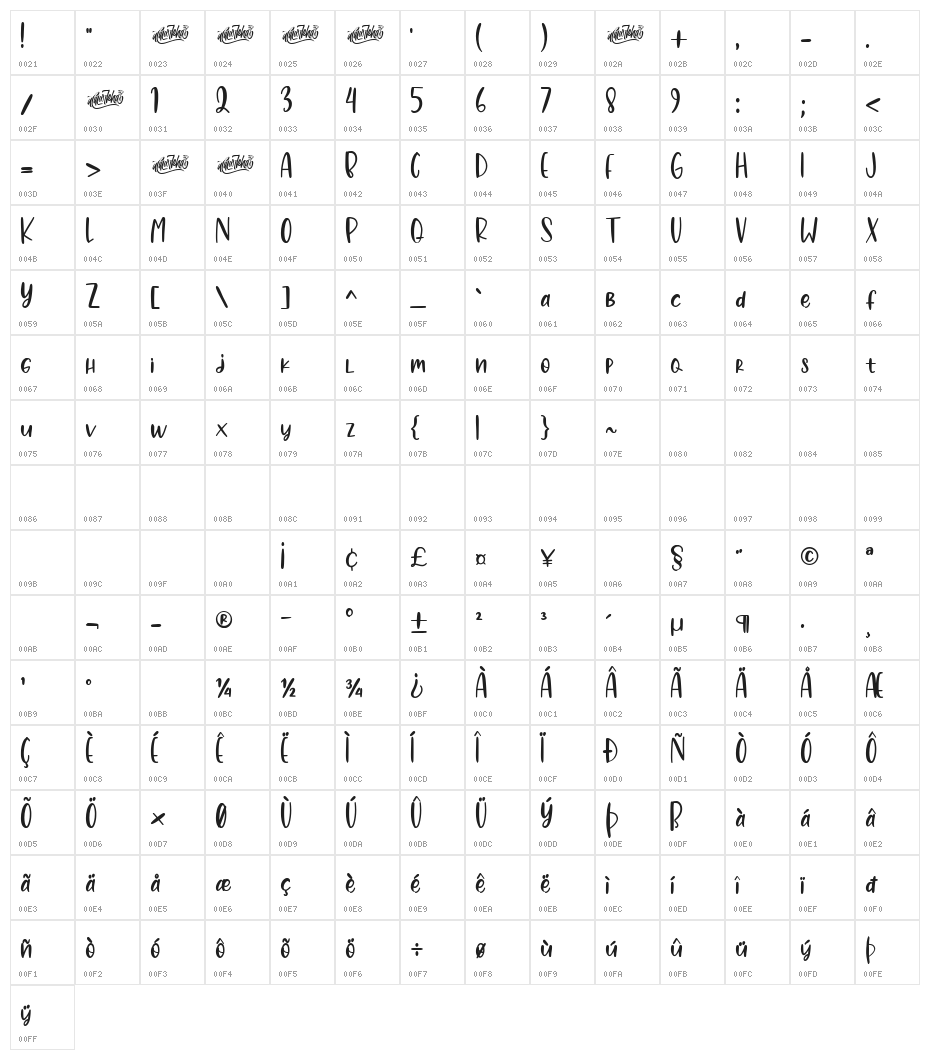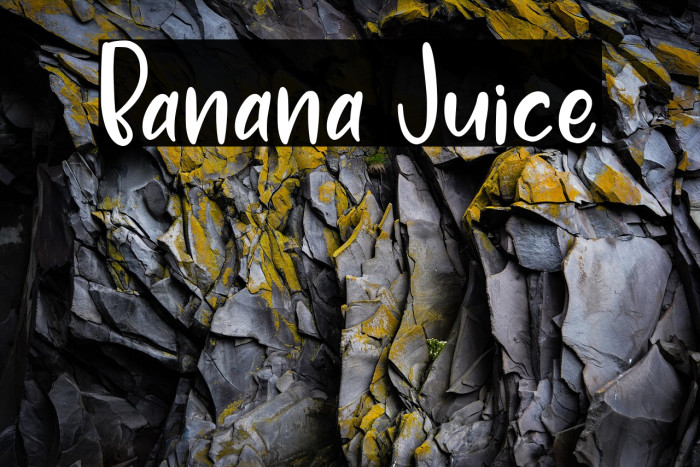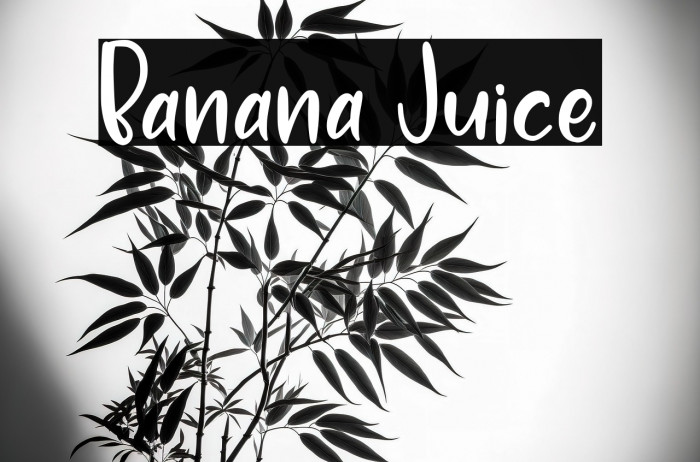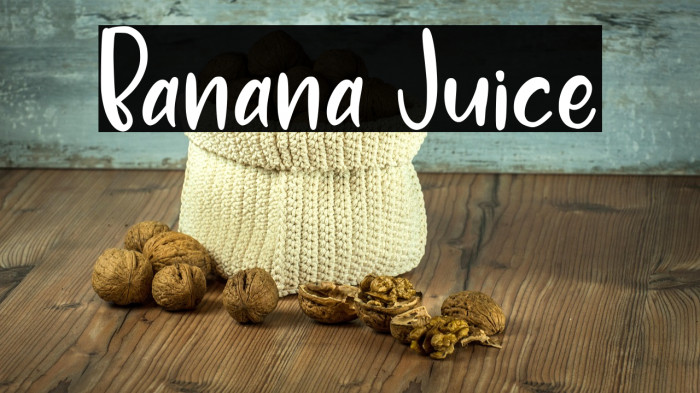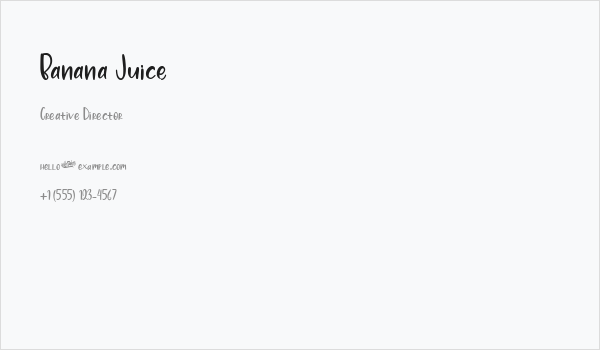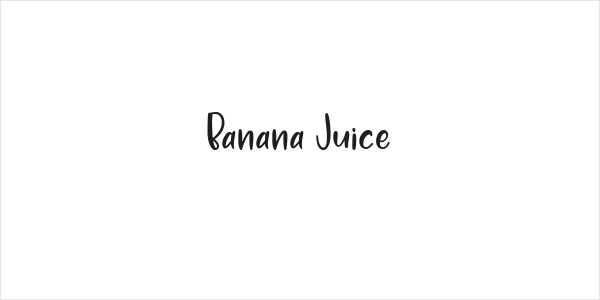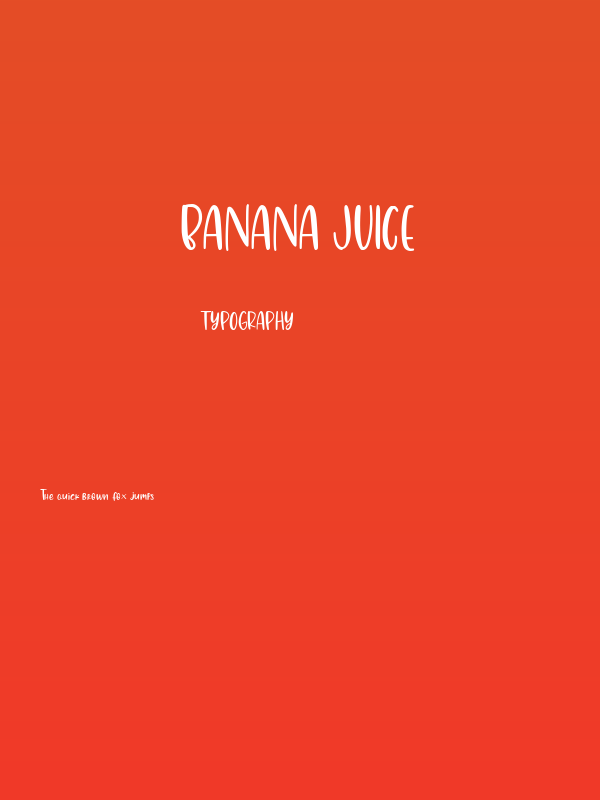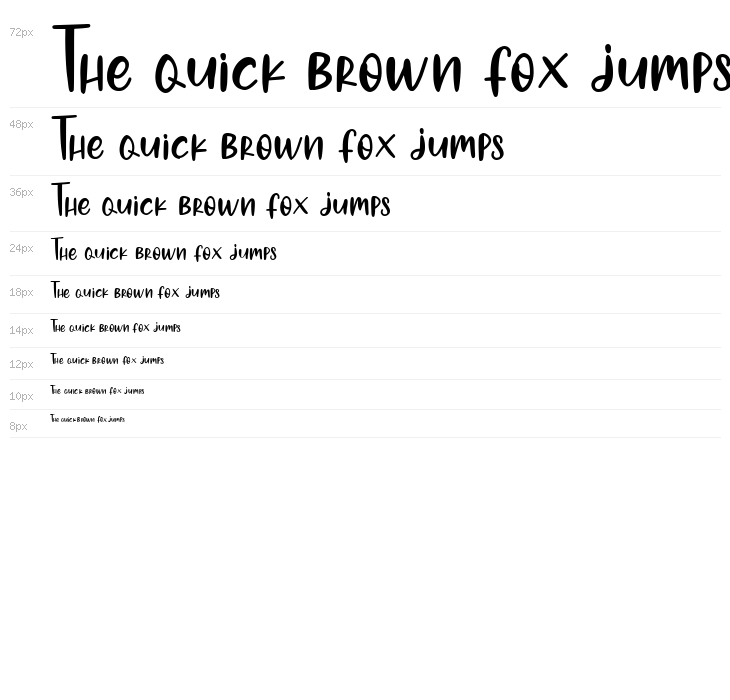
Banana Juice Font
Banana Juice Description
This font features a playful and casual handwritten style, characterized by its smooth, flowing lines and slightly irregular shapes. The uppercase letters are bold and rounded, giving a friendly and approachable feel, while the lowercase letters maintain a consistent style with a touch of whimsy. The numbers are clear and easy to read, matching the overall aesthetic. Special characters are creatively designed, adding to the font's unique personality. This font is perfect for projects that require a personal touch, such as invitations, greeting cards, or branding for creative businesses.
| Proposed Projects | Ideal for invitations, greeting cards, creative branding, and personal projects. |